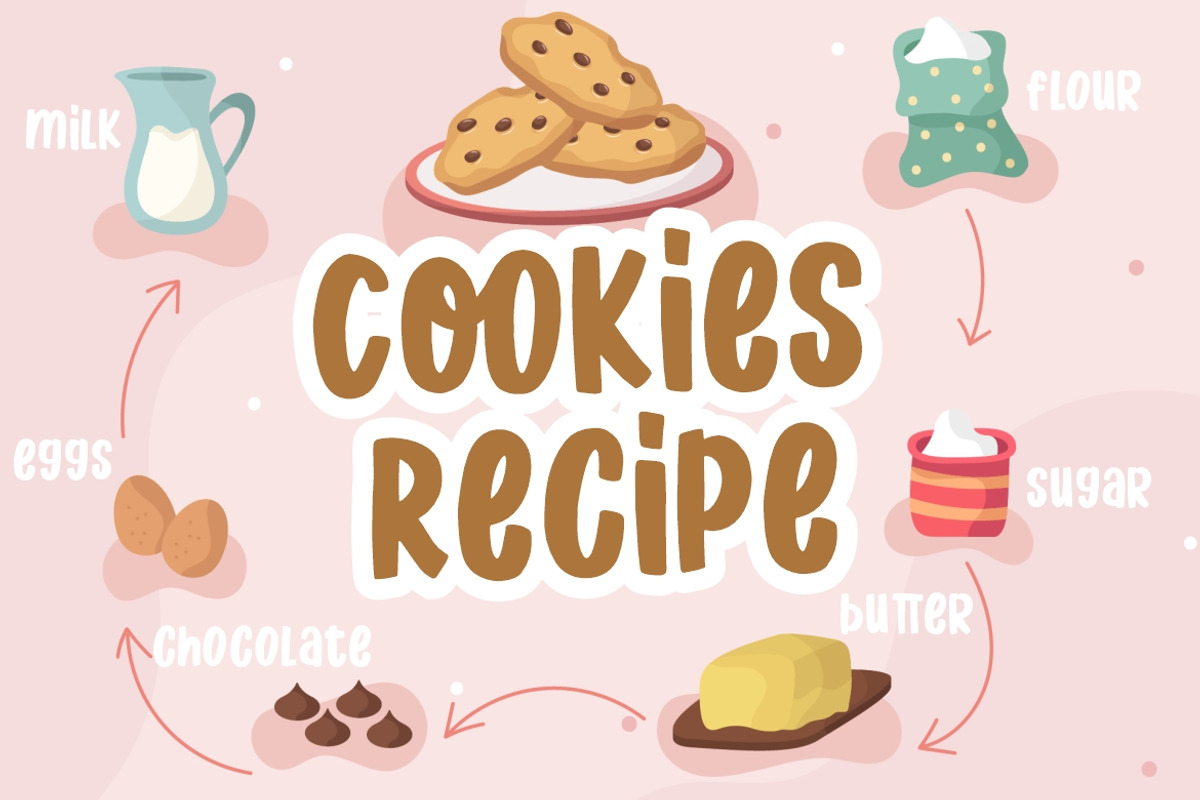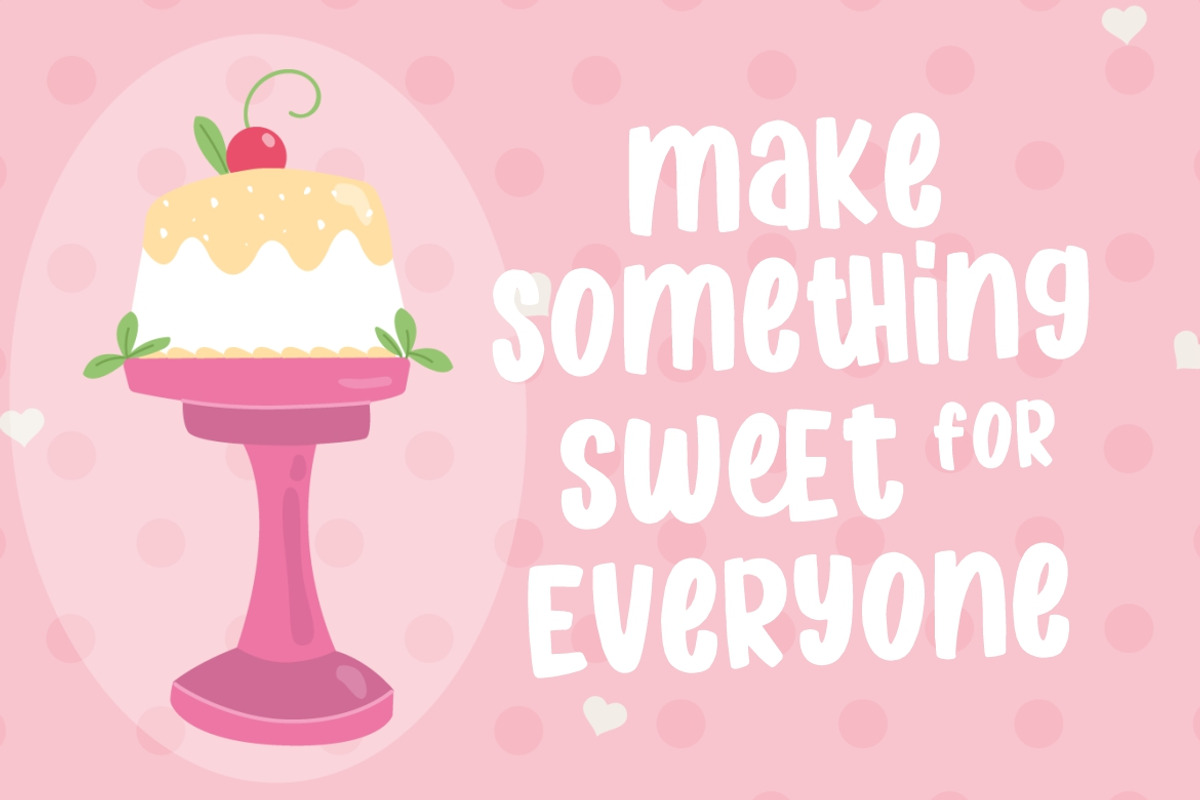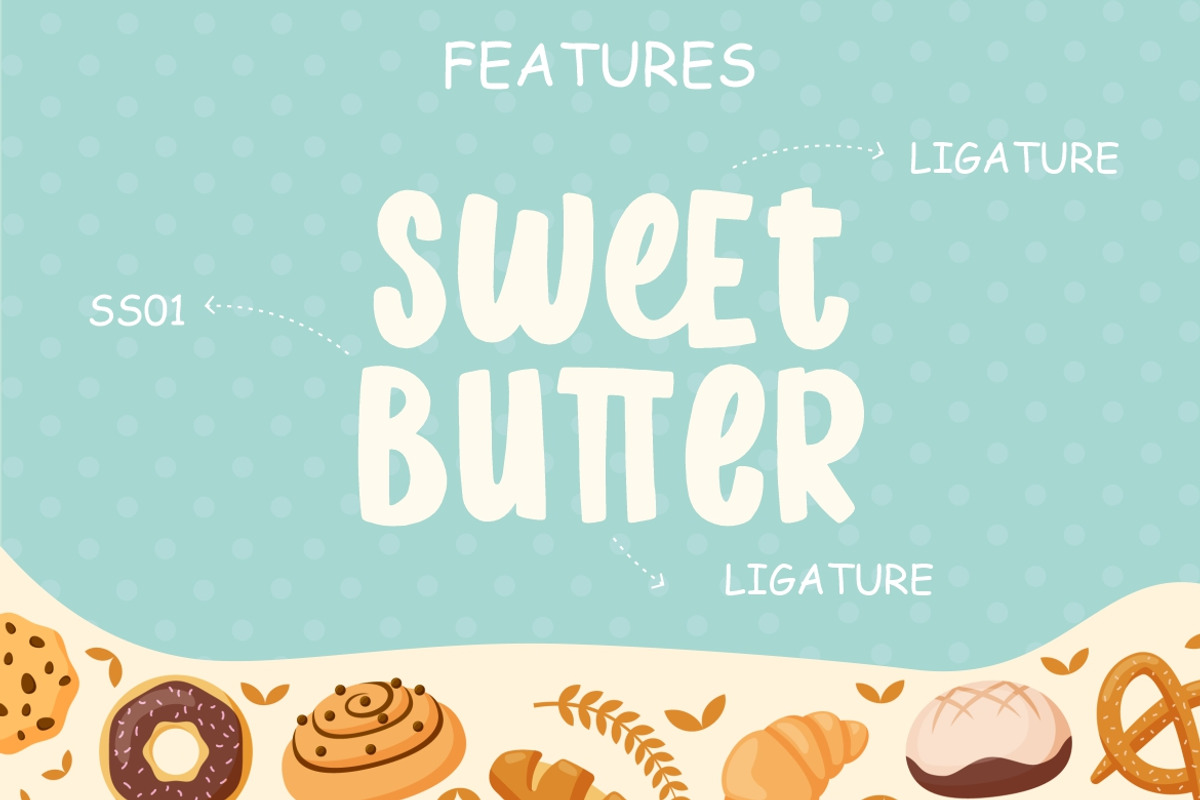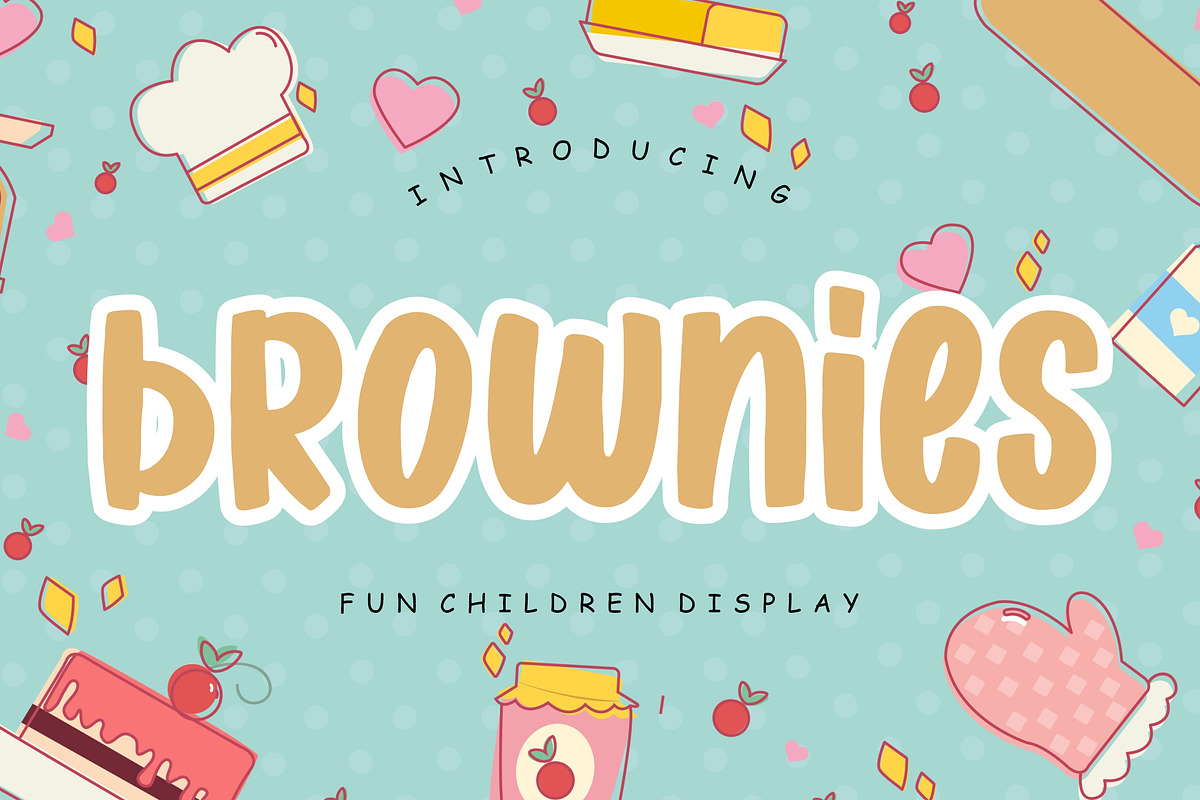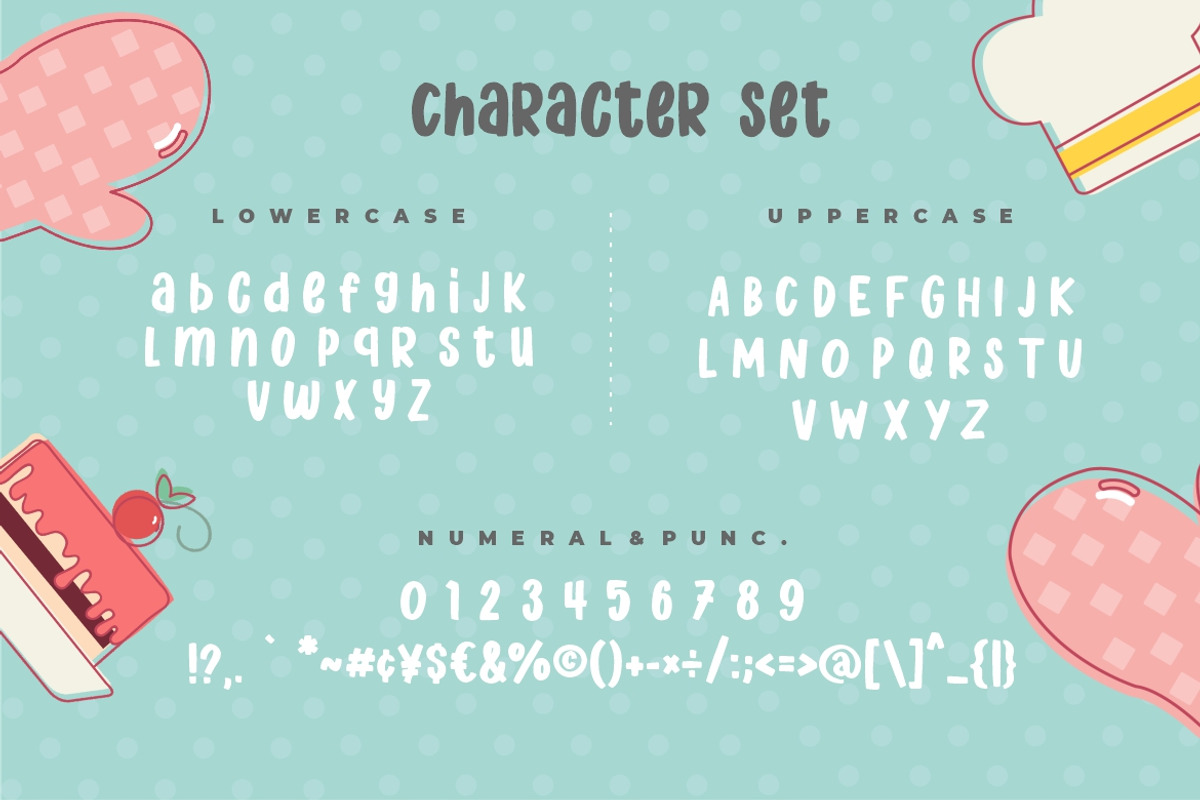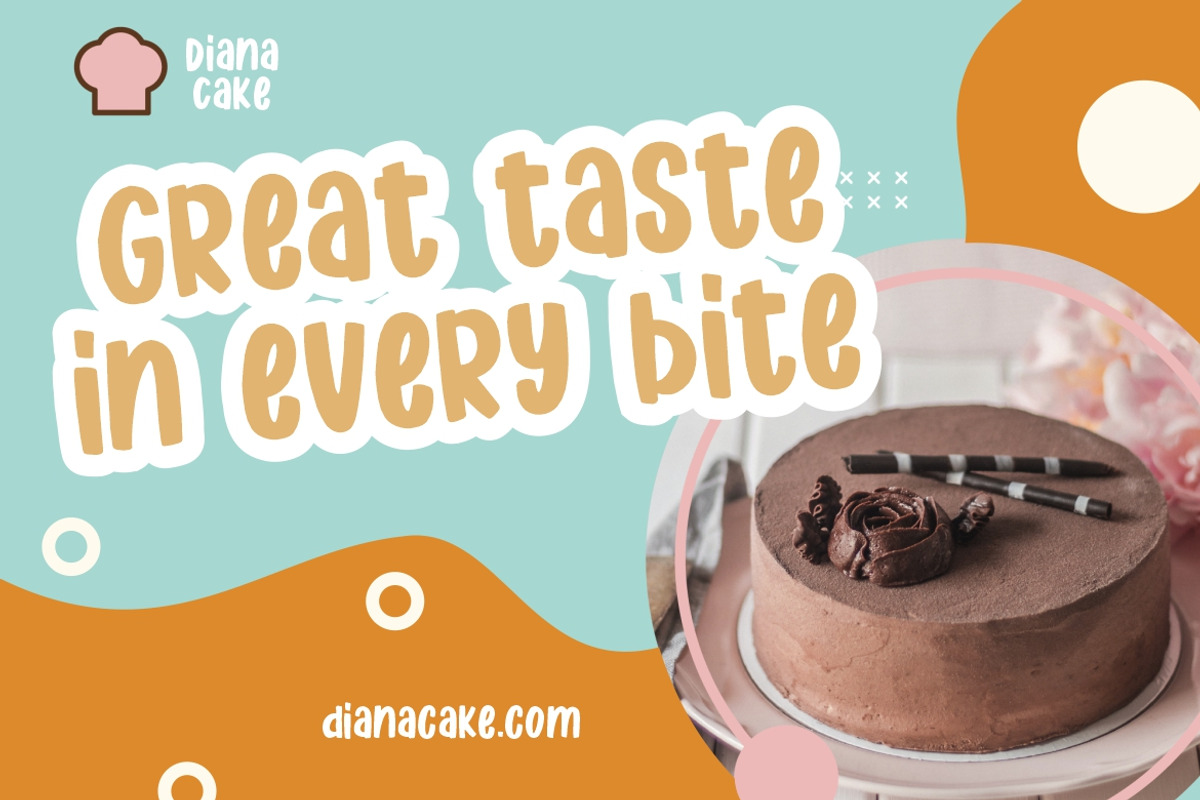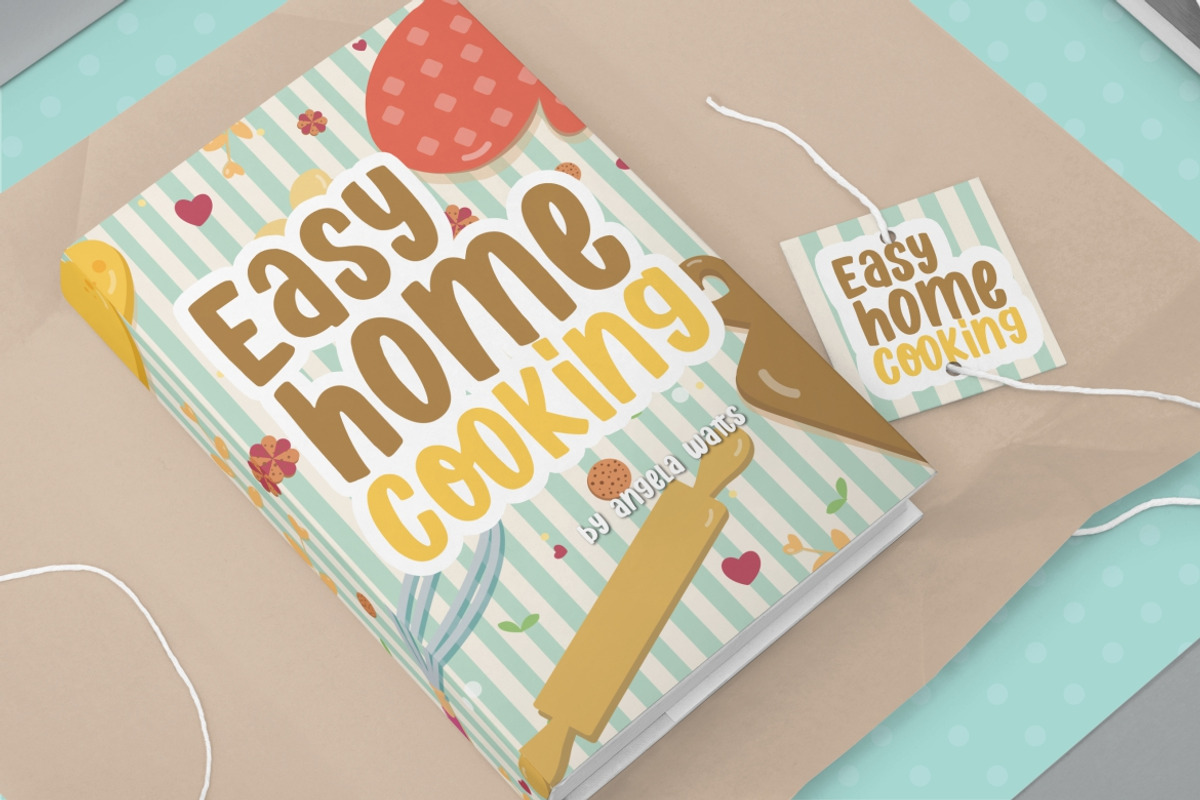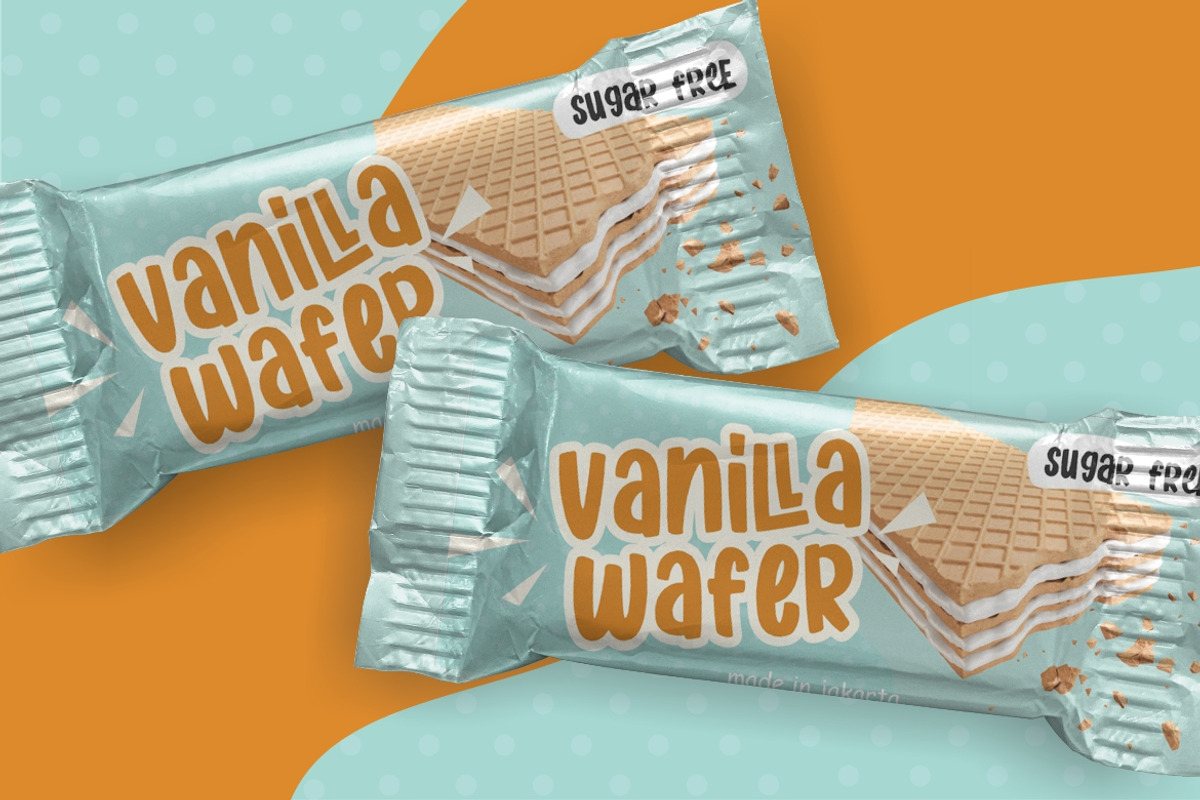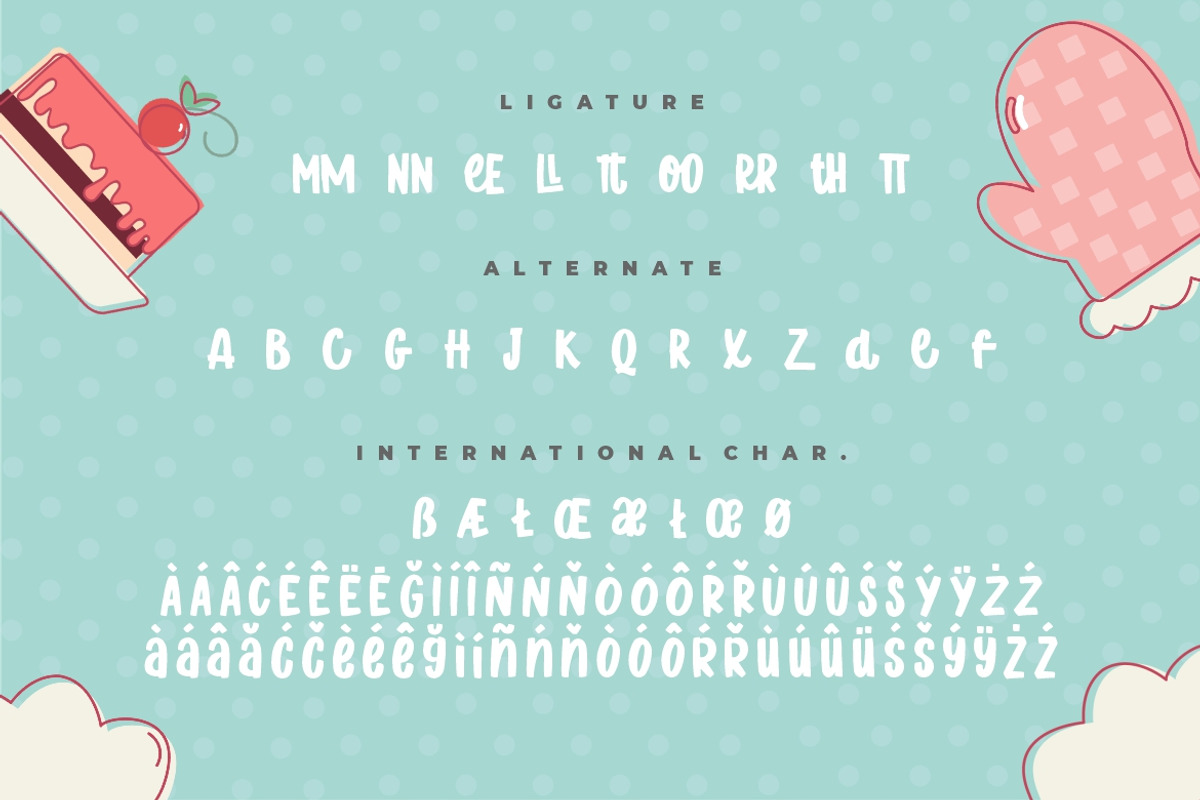
Brownies Fun Children Display
Brownies is smooth brush fun theme font that perfect for children occasion and birthday party event.
Brownies is perfect for branding projects, logo, wedding designs, social media posts, advertisements, product packaging, product designs, label, photography, watermark, invitation, stationery and any projects that need handwriting taste.
- Ligature & Alternate